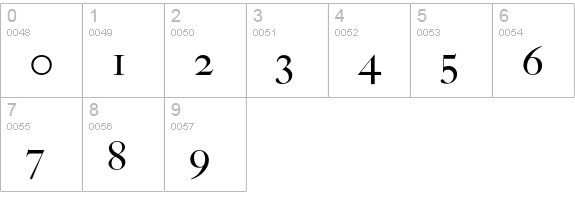
BigCaslon-SCap Font Details
BigCaslon-SCap is a timeless and elegant serif font that exudes sophistication and class. With its distinguished tall stature and refined serifs, this font is perfect for creating striking headlines and eye-catching designs. The small caps variant of the classic BigCaslon typeface adds a touch of formality and elegance to any project. This font is ideal for projects that require a touch of old-world charm and sophistication, such as invitations, branding materials, and editorial designs. Its versatility allows it to be used in a variety of contexts while maintaining a sense of timeless elegance. The best part is that BigCaslon-SCap is available for free download at FontsMarket.com. Now you can add this exquisite font to your collection without any cost, making it a valuable addition to your design toolkit. Don't miss out on the opportunity to enhance your projects with the beauty and refinement of BigCaslon-SCap.